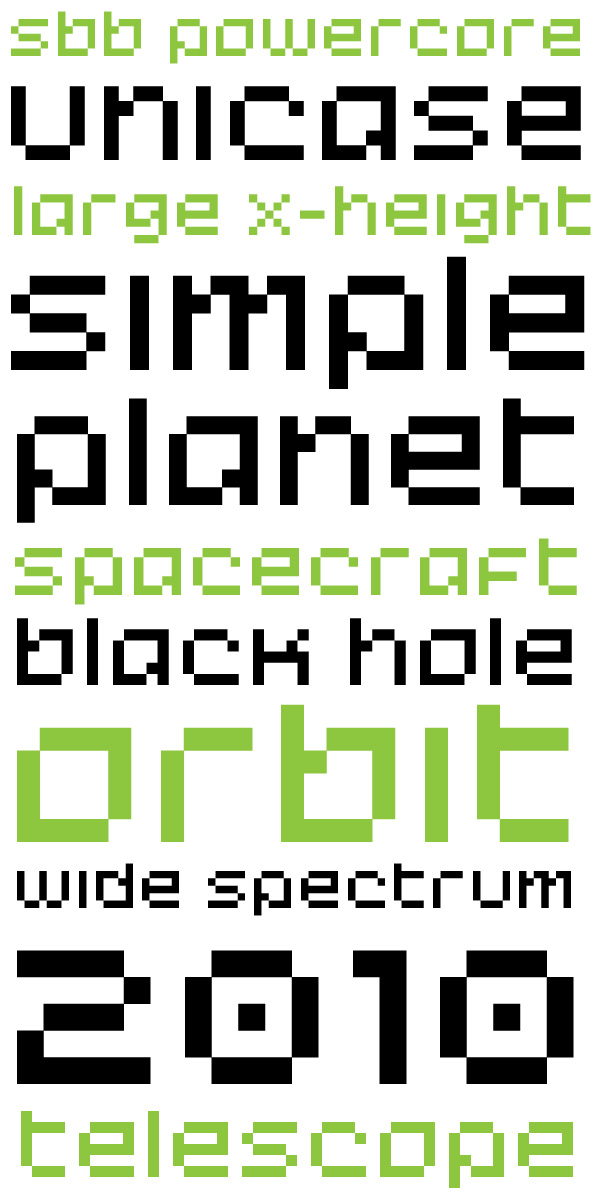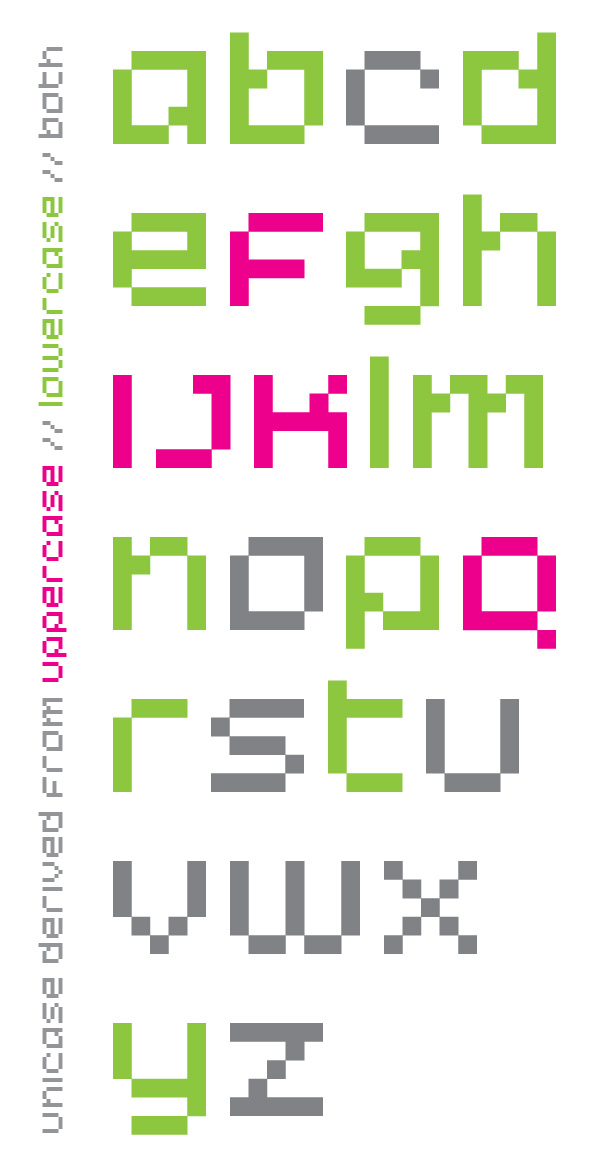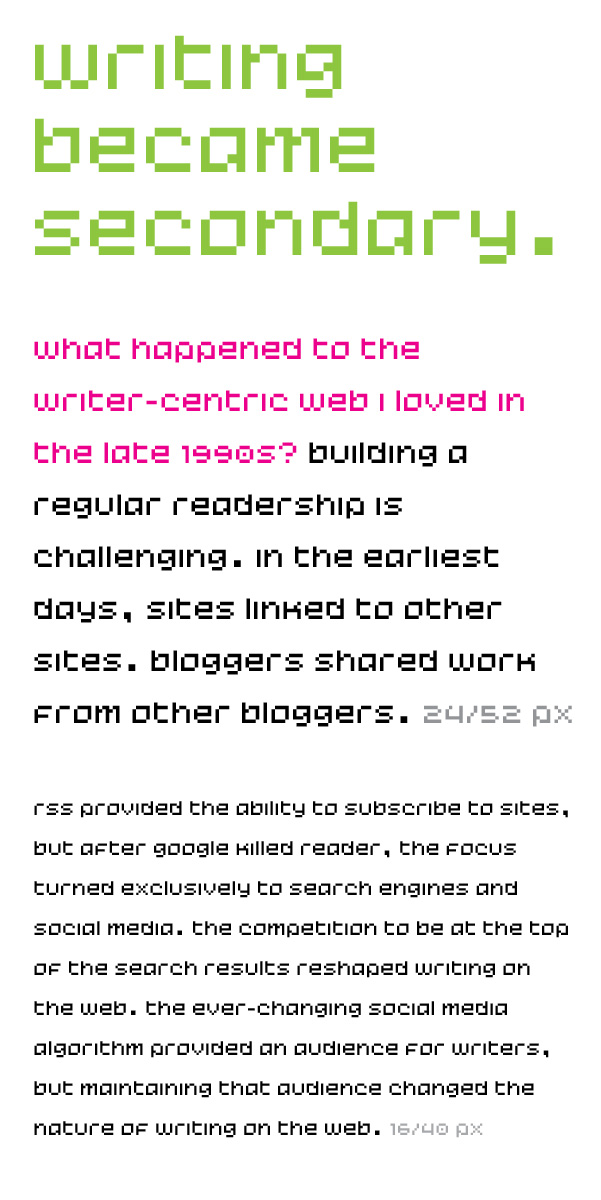
• I'm still playing around with a unicase design. I'm still using the fewest number of blocks that I can. And as always, I'm still refining.
Most unicase designs are almost all uppercase with some lowercase thrown in — mostly geared toward eliminating ascenders and descenders. I'm taking the inspiration from mostly the lowercase.
Working on seeing how SbB Powercore works with longer blocks of text. This is a from a blog post I wrote a couple of weeks ago.